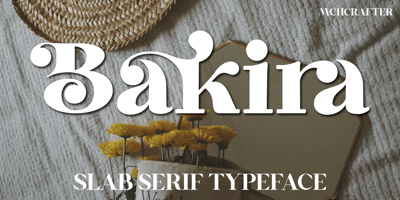
Bakira
Bakira font
Bakira Font Family was designed by El Mehdi CHOUYOUKH and published by Mchcrafter. Bakira contains 1 styles and family package options. Bakira font is a Modern Stylistic Slab Serif typeface A new slab serif that we created specially for branding needs, with extra ligatures and alternates in a unique shape just to add value to your brand. It so nice to leverage designer or product owner that need solutions to make their design look more stylish and modern. And specially for Bakira, We prepared all the ligatures, and the alternates characters to help you create unlimited variations for your creative needs.Bakira includes: All uppercase & lowercase letters All numbers 0-9 & Punctuation Ligatures & Alternates Symbols Multiligual Letters